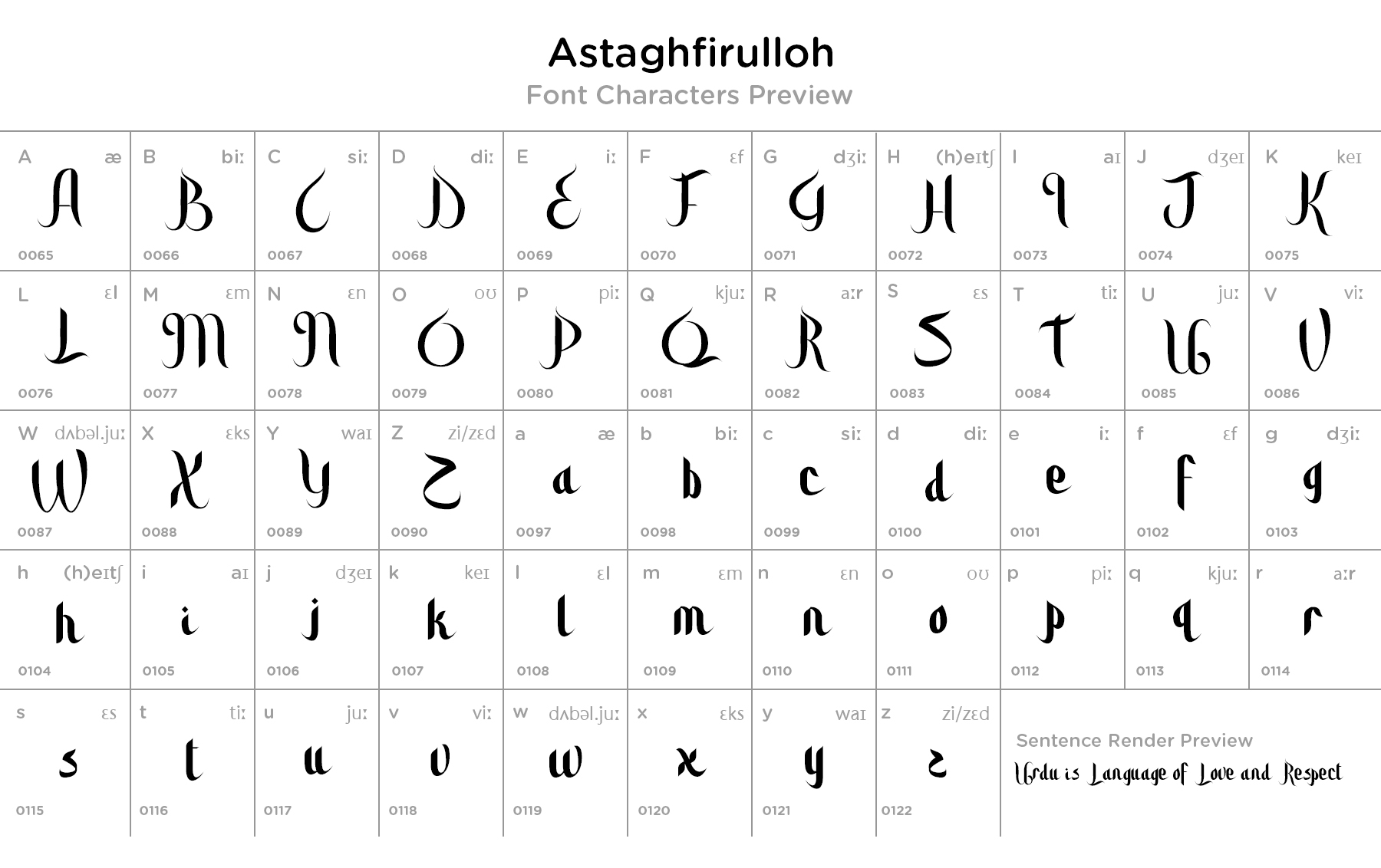
Astaghfirulloh
Astaghfirulloh is a captivating Arabic face font designed by VinType Studio. The font gives a modern twist to classic Arabic scripting, with letters that appear as though they are crafted with a calligraphic pen. The letters are well-aligned on the x-axis and have a compact baseline, creating a clean and cohesive look. The font is designed without intricate detailing, making it an original style for various uses. Therefore, it is perfect for Islamic events, branding, Ramadan, and other Islamic celebrations. It can be used across industries such as food and beverage brands, Islamic fashion, restaurants, travel, wedding and event organizers, publishing, and more.
Created on December 22, 2021, “Astaghfirulloh” has a weight of 400 and offers a varying thicknesses throughout the letterforms like the flow of Qalam or calligraphic pen. It supports 189 languages and includes 218 glyphs, with a left-to-right direction. The font includes English alphabets (both uppercase and lowercase), numeric values, and punctuation marks. This font is compatible with many design applications, including Adobe Photoshop, Illustrator, Premiere Pro, and more. Its Arabic calligraphy-inspired design includes thick and striking strokes, pointy ends, evenly spaced letters, and beautiful dull curves, adding a sense of motion to your designs.